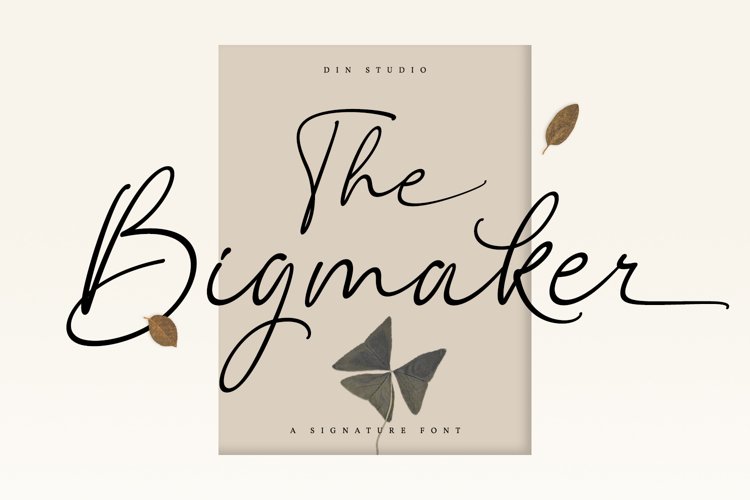
Introducing The Bigmaker - A Signature Font
This handmade font typeface with an elegant, graceful, yet simplistic cursive style. It’s a must have font for your classy website, for your social media branding, Pinterest banners, printed invitations, and more! Inspire and give love to your audience, clients, or guests with this stylish signature font.